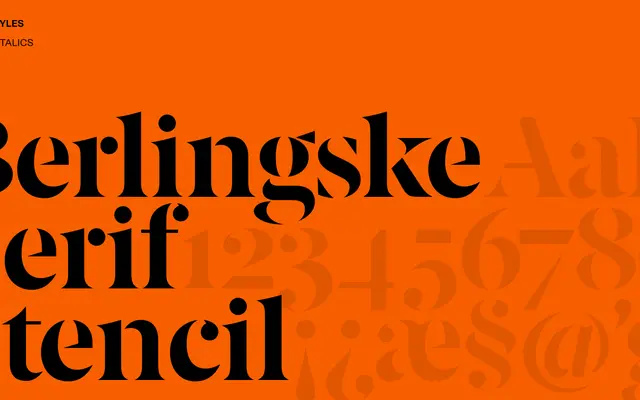
Berlingske Serif Stencil
A stencil-cut serif variant from Playtype's Berlingske family, built for expressive headline and editorial use.
Drawn as a stencil offshoot of the Berlingske Serif family, this cut introduces characteristic stencil breaks into a classical serif structure. The result sits well in large-scale editorial contexts where a harder, more mechanical quality is wanted without abandoning the warmth of a serif. The scraped page offers limited detail on weights and language coverage, but the design reads as a single-weight display tool.
A stencil variant of a serif typeface, the cut bridges typical separates between serif and display categories; the stencil treatment places it firmly in the display category with a stencil serif subcategory.